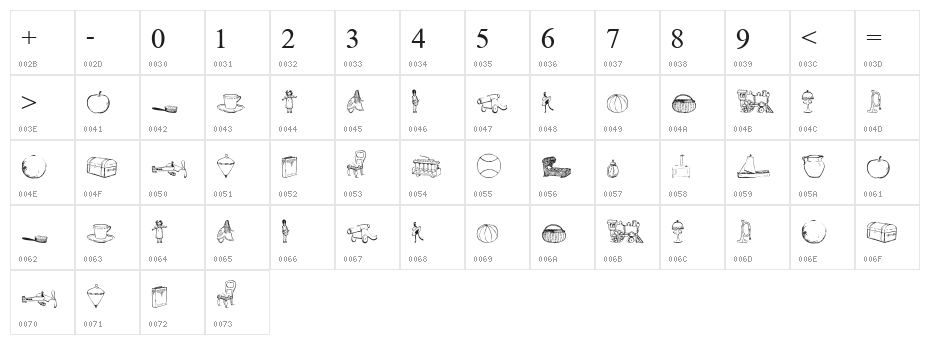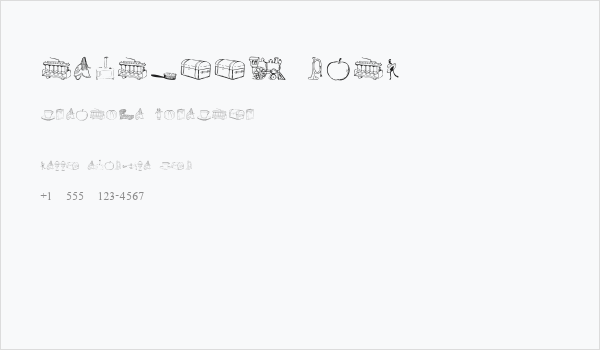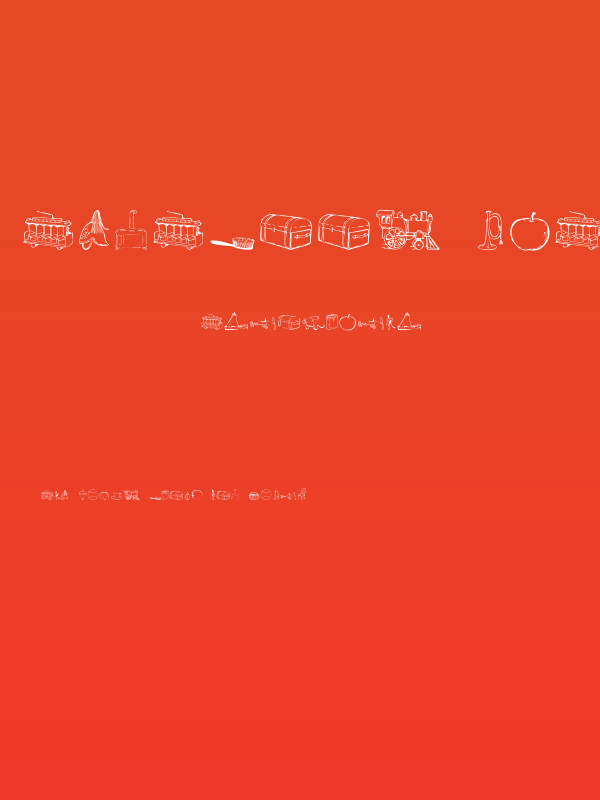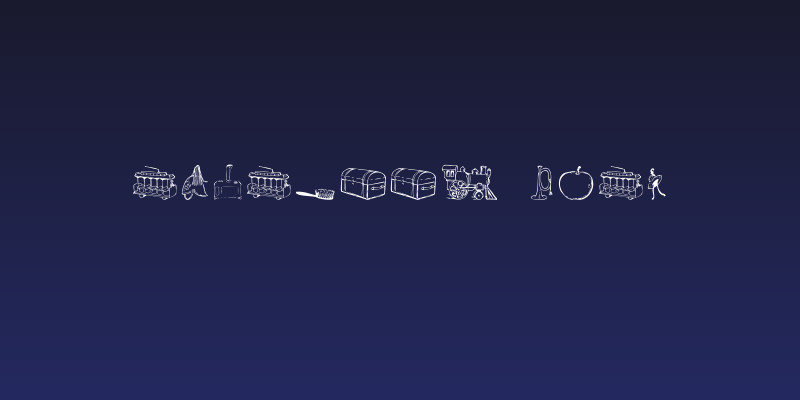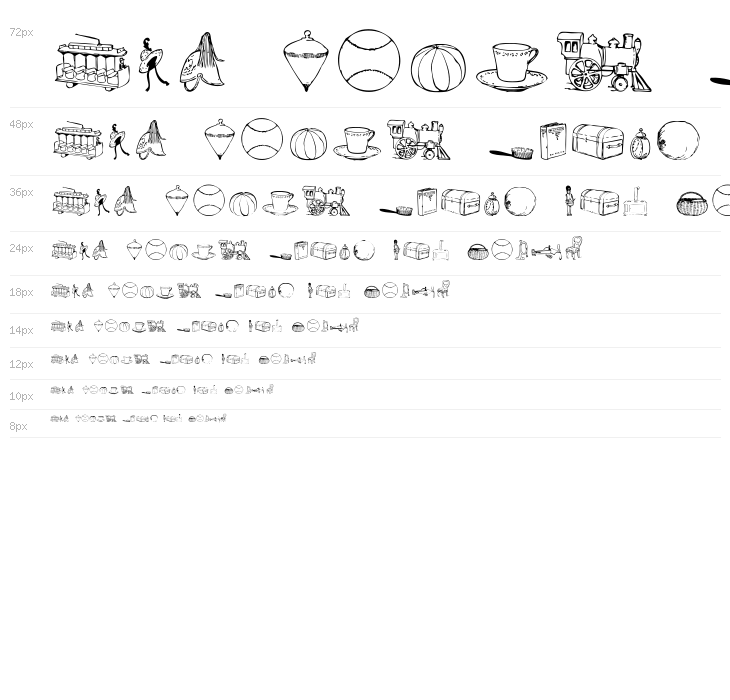
Textbook Math Font
| Stile generale | Playful, Educational |
| Caso d'uso | Educational materials, Children's books, Creative branding |
| Progetti proposti | This font is perfect for children's books, educational posters, and playful branding projects that require a touch of whimsy and creativity. |